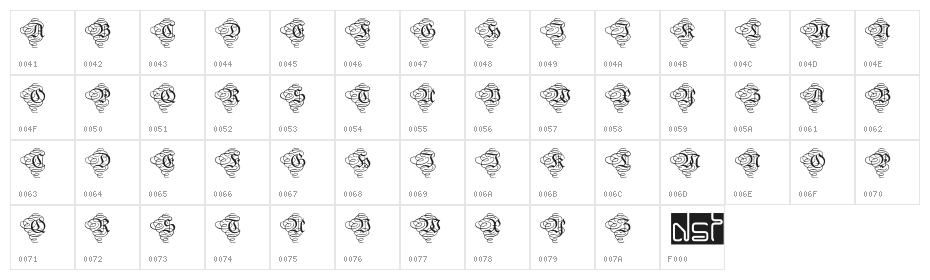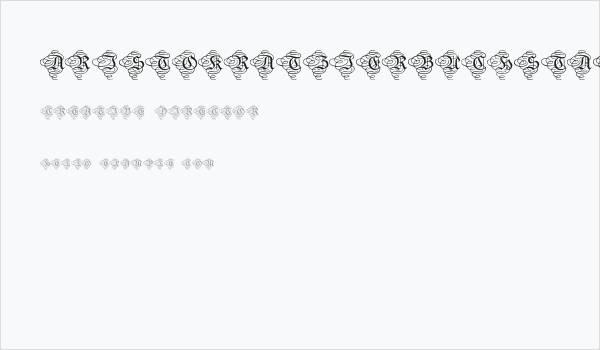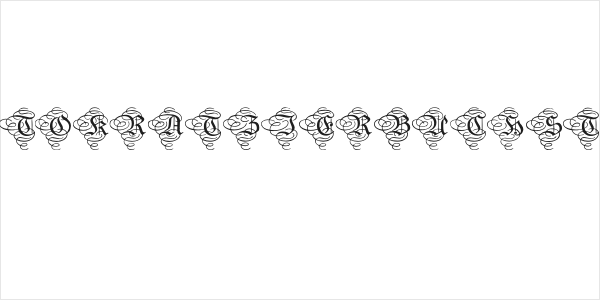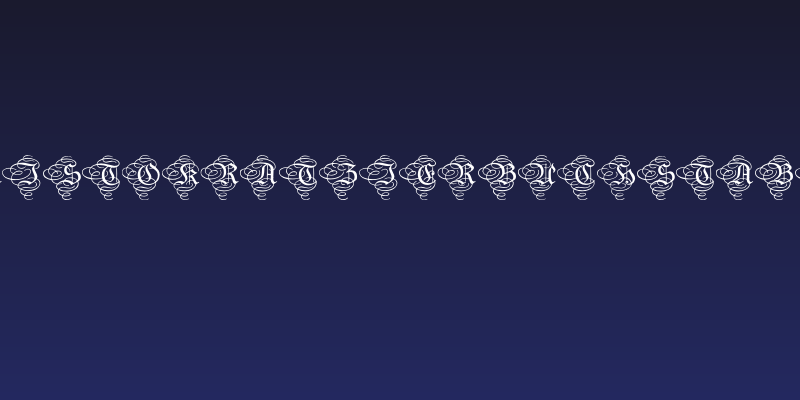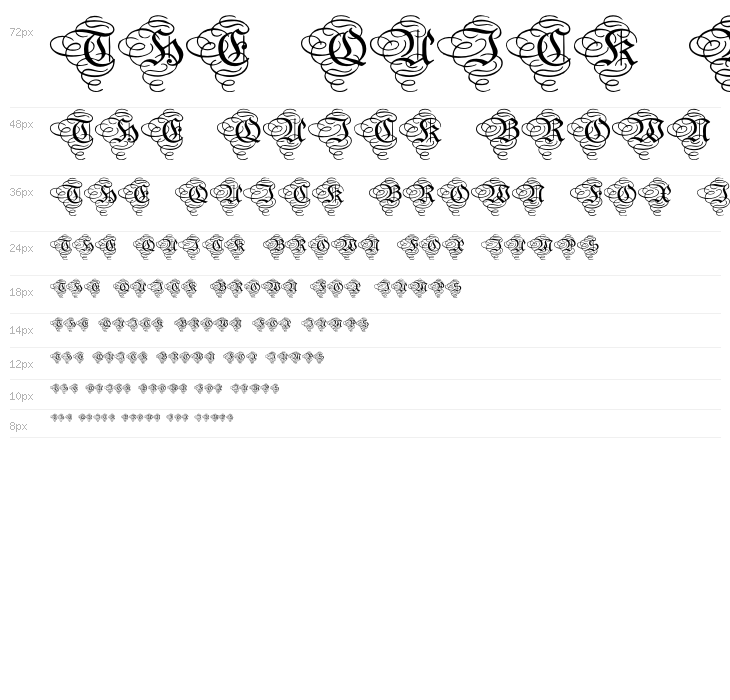
AristokratZierbuchstaben Font
AristokratZierbuchstaben Description
This font is an intricate and highly decorative typeface characterized by its elaborate swirls and flourishes. Each letter is encased in ornate loops, creating a sense of elegance and grandeur. The design is reminiscent of historical calligraphy, with a focus on artistic expression and visual impact. The letters are bold and striking, making them suitable for attention-grabbing displays. The overall appearance is both vintage and sophisticated, ideal for projects that require a touch of luxury and refinement.
| Use Case | Logos, Headlines |
| Proposed Projects | Ideal for wedding invitations, luxury branding, vintage posters, and decorative book covers. |